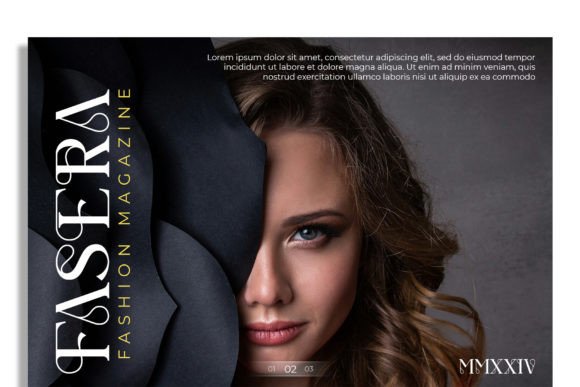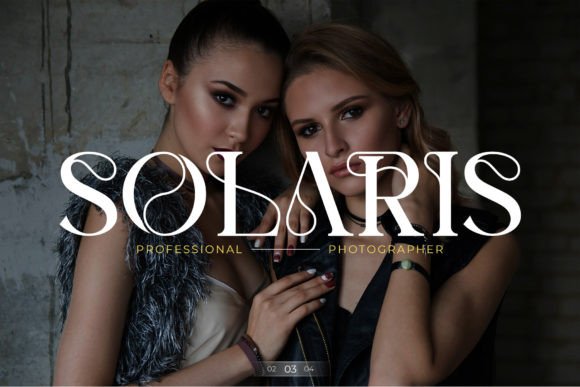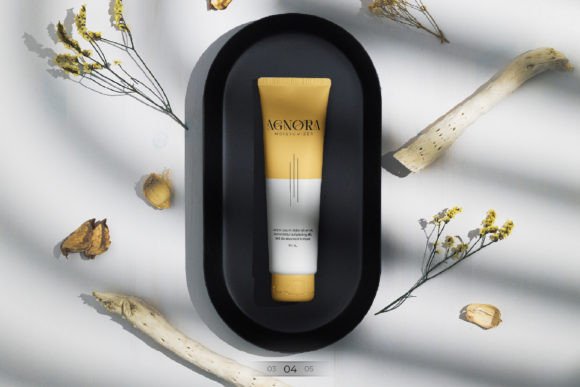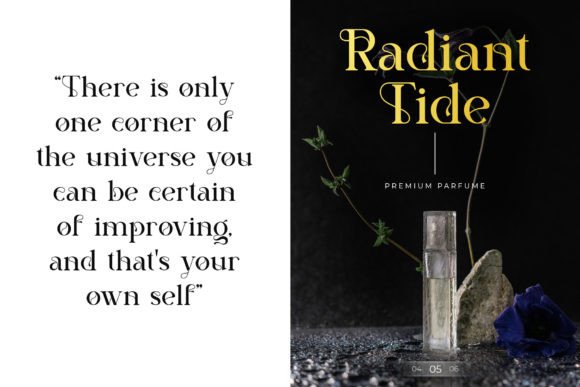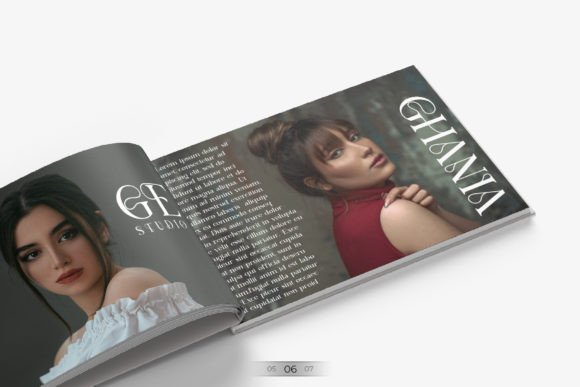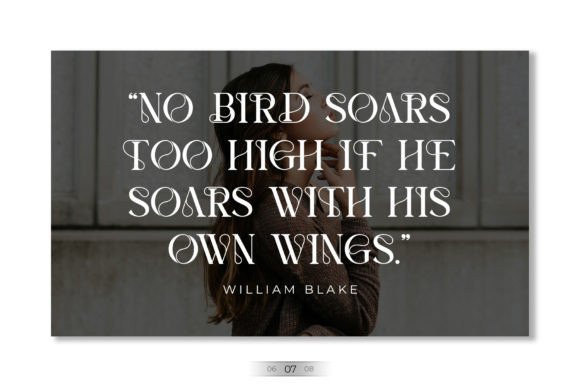
Introduction to Geliant Font
Geliant Serif is a balanced, smooth, elegant and stylish serif font.
He has a beautiful character It fits perfectly with invitation card designs, company logos, movie titles, movie names, business cards, book titles, brand names and various other designs.
Key Features of Geliant Font